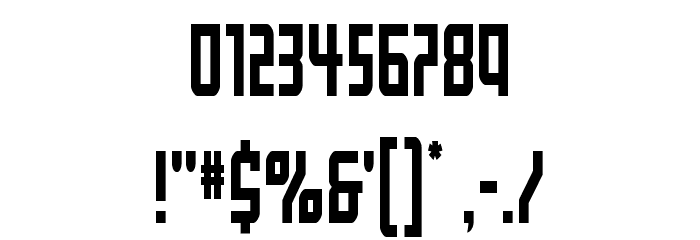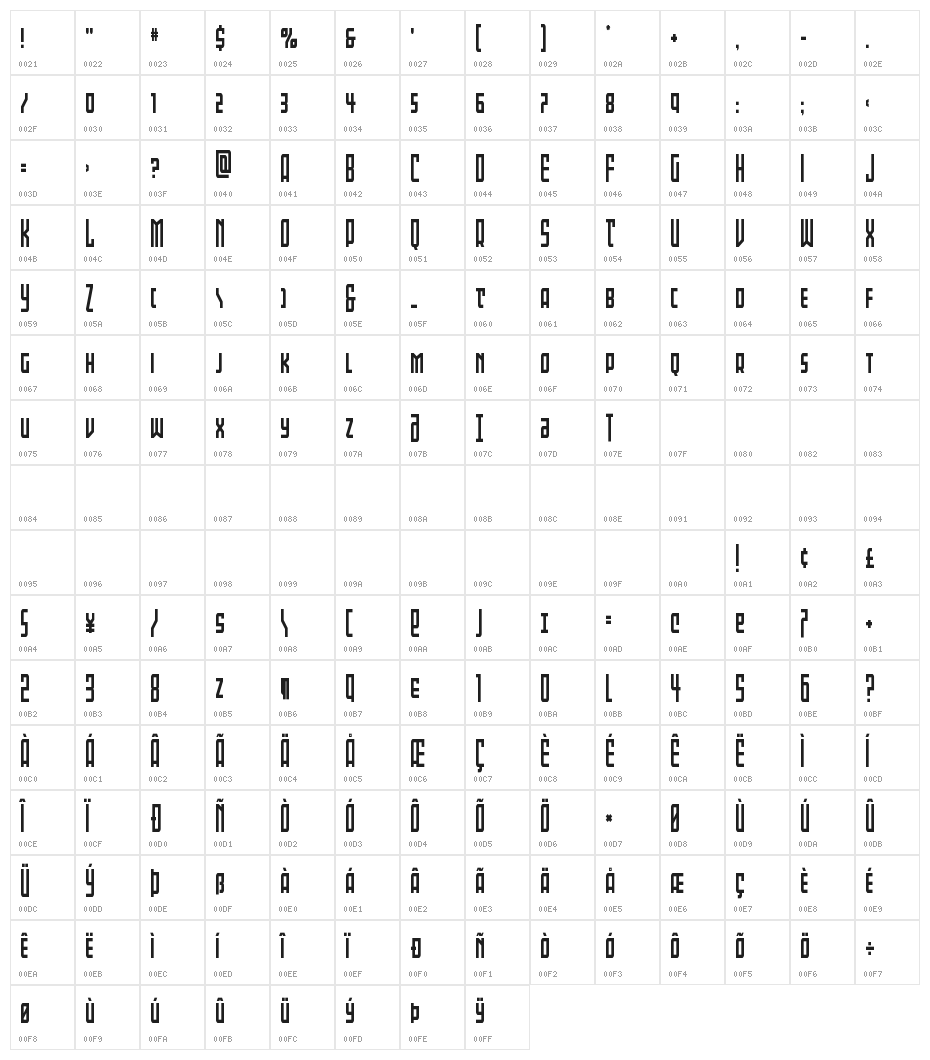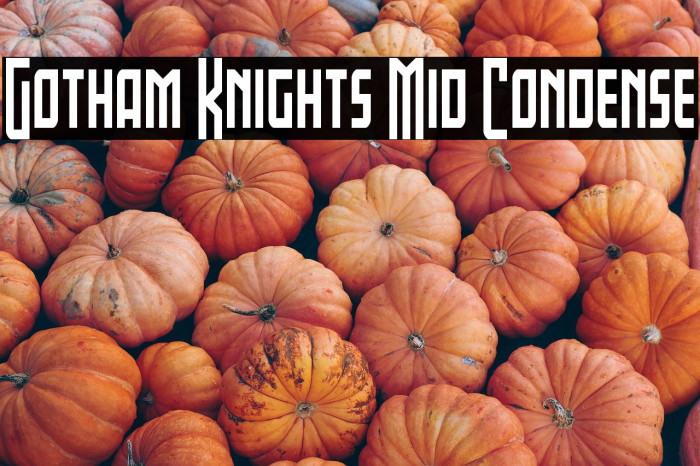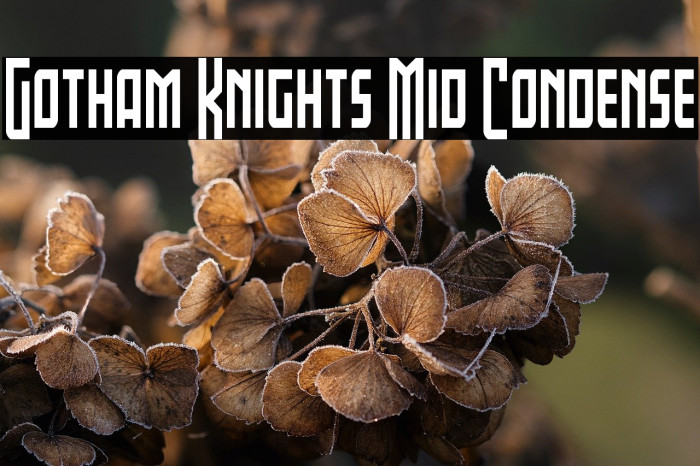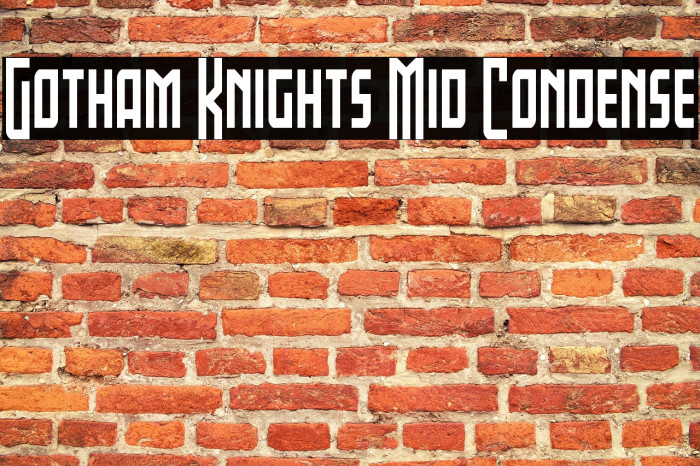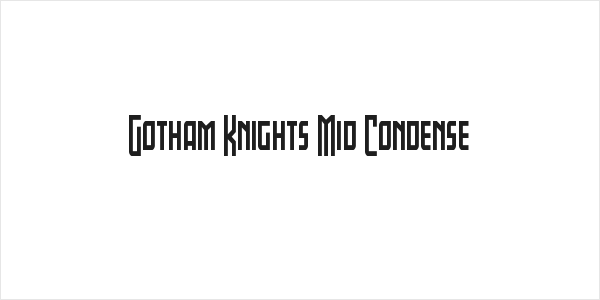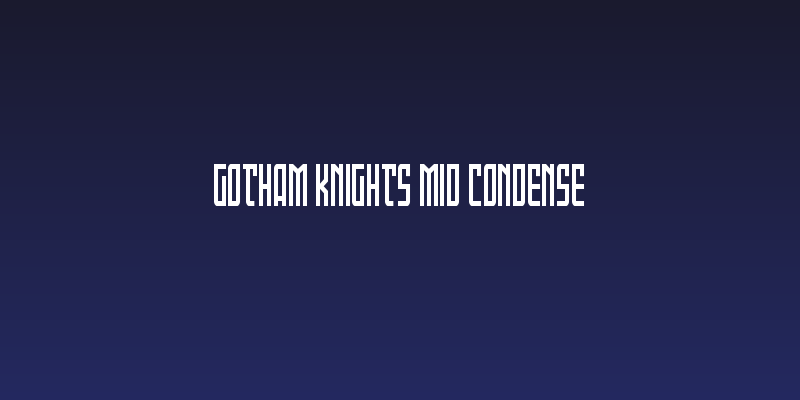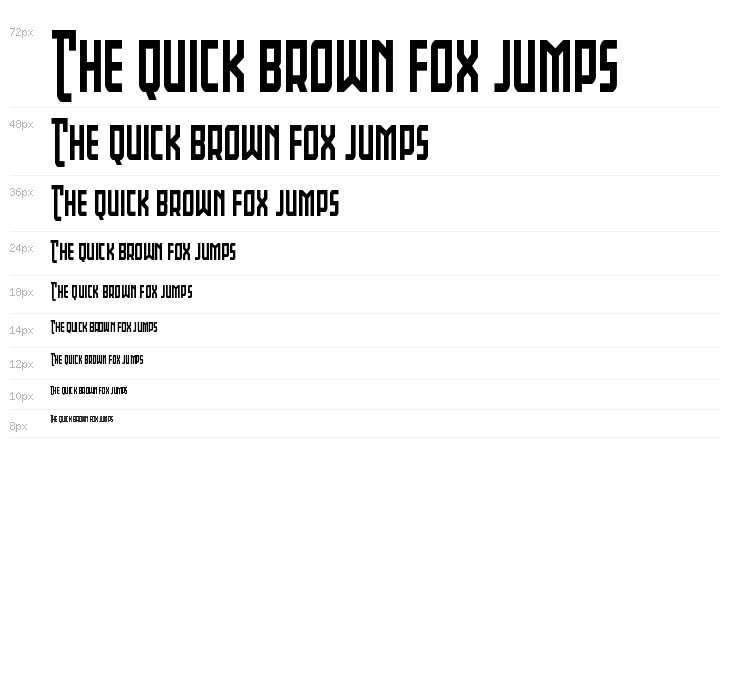
Gotham Knights Mid Condense Font
Gotham Knights Mid Condense Description
This font features a bold and striking design with a condensed structure that emphasizes verticality and strength. The characters are uniformly thick, with sharp, angular edges that give it a modern and futuristic appearance. The uppercase letters are particularly prominent, showcasing a geometric style that is both clean and assertive. The numerals and special characters maintain this consistency, ensuring a cohesive look across all text elements. The font's design is ideal for making a strong visual impact, with its clear and legible form even at smaller sizes.
| Proposed Projects | Ideal for branding, posters, video game titles, and any project requiring a strong, modern aesthetic. |